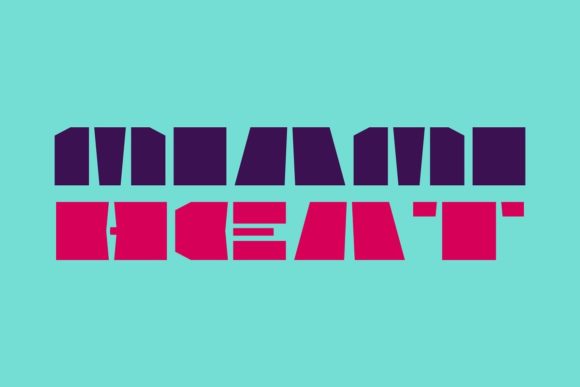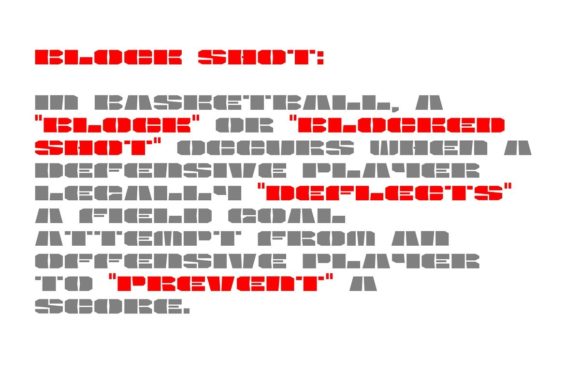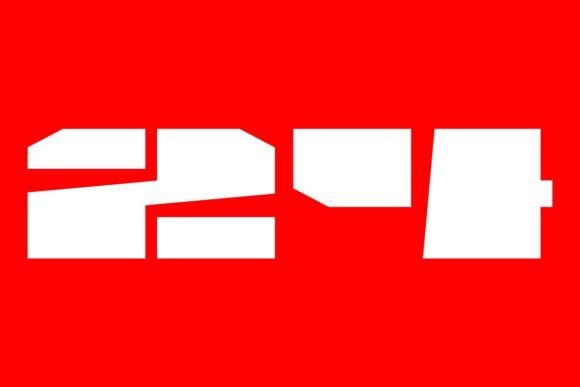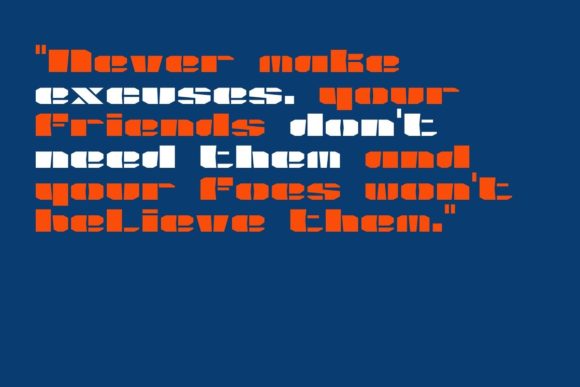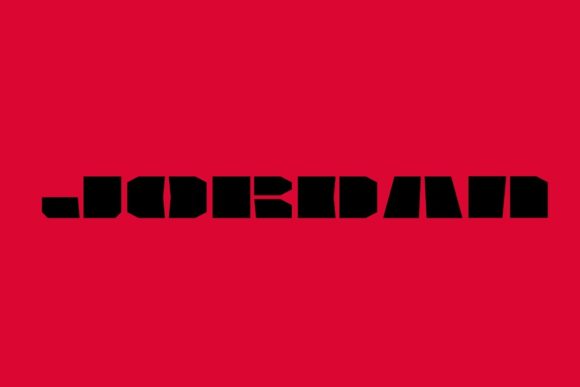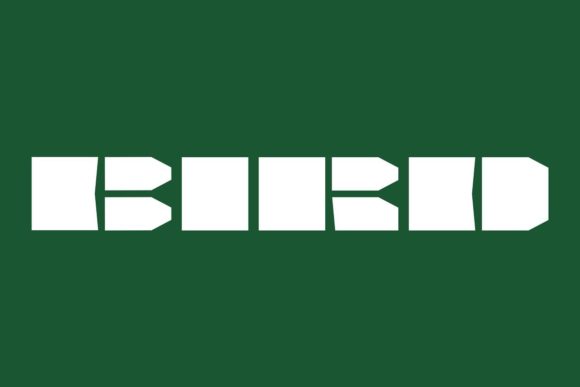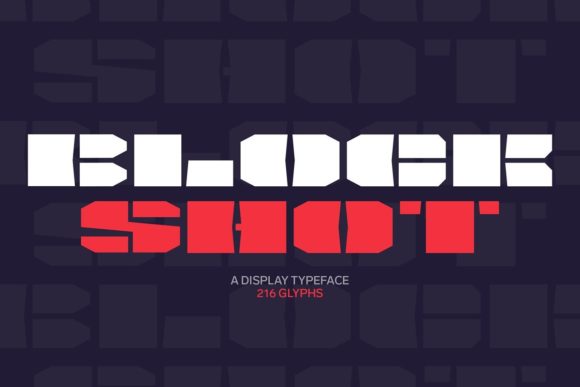
Introducing Block Shot Font: The Ultimate Geometric Display Font
Are you tired of using the same old fonts in your designs? Do you want to add a touch of boldness and uniqueness to your creations? Look no further than Block Shot Font, a geometric styled display font that is sure to elevate your font library. In this article, we’ll dive into the features and benefits of Block Shot Font, and explore how it can enhance your designs.
What is Block Shot Font?
Block Shot Font is a bold, thick lettered, geometric styled display font that is perfect for making a statement. Its unique design features clean lines, sharp edges, and a futuristic aesthetic that is sure to grab attention. Whether you’re working on a logo, poster, or social media graphic, Block Shot Font is the perfect choice for designers and crafters looking to add a touch of sophistication and style.
Key Features of Block Shot Font
- Bold and Thick Lettering: Block Shot Font features bold and thick lettering that is perfect for creating eye-catching headlines and titles.
- Geometric Style: The font’s geometric style gives it a modern and futuristic aesthetic that is sure to impress.
- Clean Lines and Sharp Edges: The font’s clean lines and sharp edges make it perfect for creating crisp and clear designs.
- Versatile: Block Shot Font is versatile and can be used for a wide range of design projects, from logos and posters to social media graphics and more.
Benefits of Using Block Shot Font
So why should you choose Block Shot Font for your design projects? Here are just a few benefits of using this amazing font:
- Adds Visual Interest: Block Shot Font adds visual interest to your designs, making them stand out from the crowd.
- Enhances Creativity: The font’s unique design and geometric style can help to enhance your creativity and inspire new ideas.
- Perfect for Display Text: Block Shot Font is perfect for display text, such as headlines and titles, where you want to make a bold statement.
- Easy to Read: Despite its bold and thick lettering, Block Shot Font is easy to read, making it perfect for designs where clarity is key.
How to Use Block Shot Font in Your Designs
So how can you use Block Shot Font in your designs? Here are a few ideas to get you started:
- Logos and Branding: Use Block Shot Font to create bold and eye-catching logos and branding materials.
- Posters and Flyers: The font is perfect for creating attention-grabbing posters and flyers that will stand out from the crowd.
- Social Media Graphics: Use Block Shot Font to create bold and eye-catching social media graphics that will help your brand stand out.
- Headlines and Titles: The font is perfect for creating bold and eye-catching headlines and titles that will grab attention.
In conclusion, Block Shot Font is a bold, thick lettered, geometric styled display font that is sure to enhance any creation. Its unique design and versatile nature make it perfect for a wide range of design projects, from logos and posters to social media graphics and more. Whether you’re a designer or crafter, Block Shot Font is a wonderful asset to have in your font library.